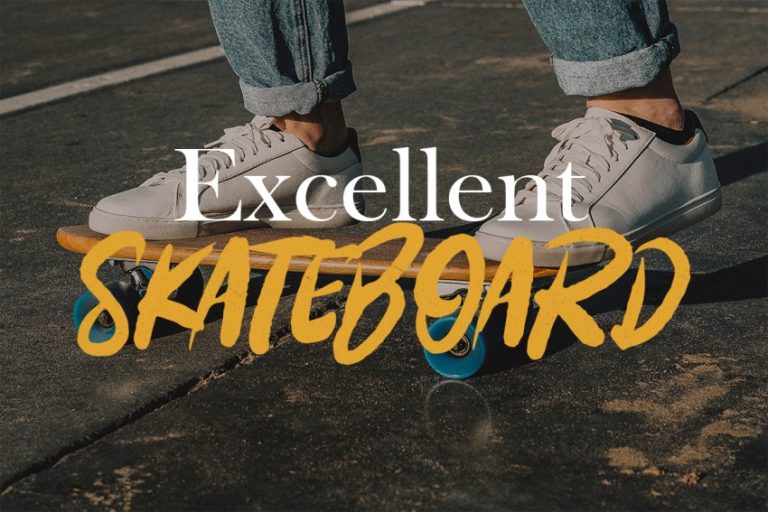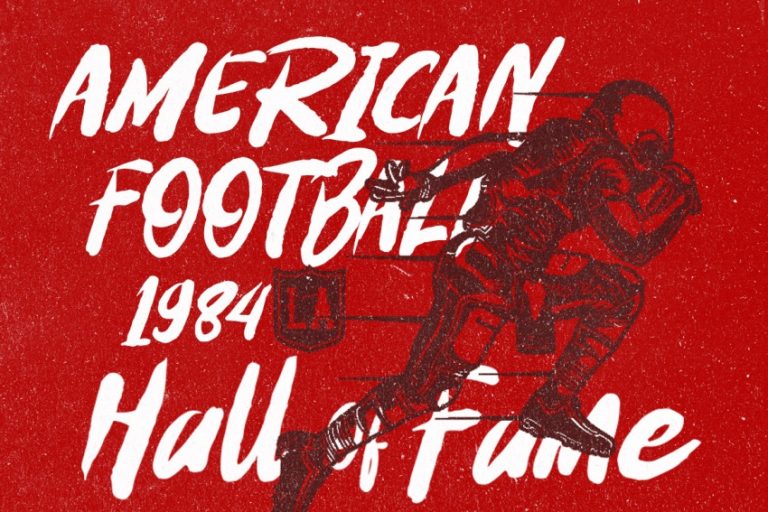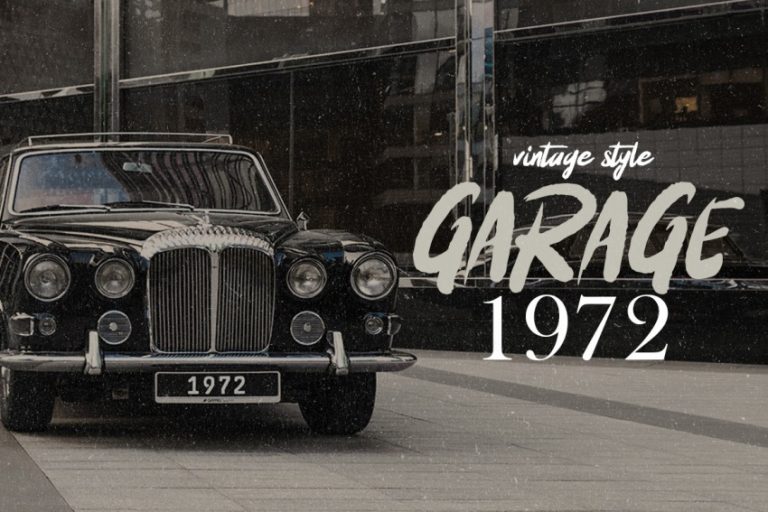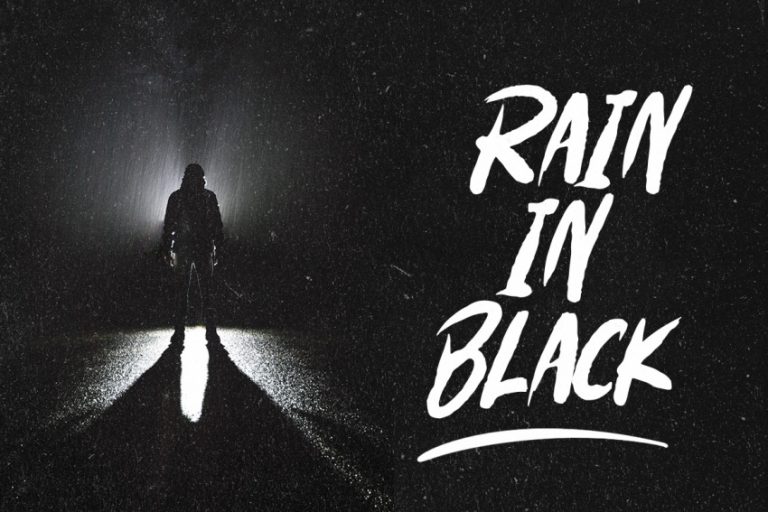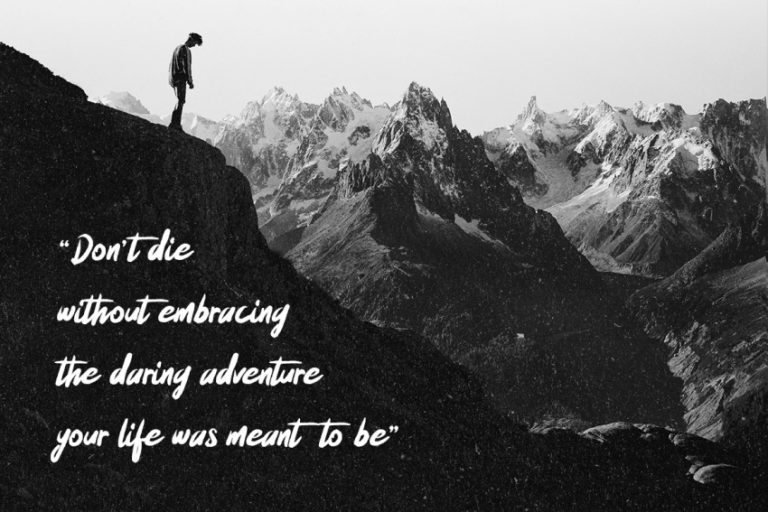
Breaking Mad
Breaking Mad is a handmade font, Natural, and Full of Spirit. Breaking Mad is great for Branding, Logo Design, Lettering, Clothing, Poster and others.